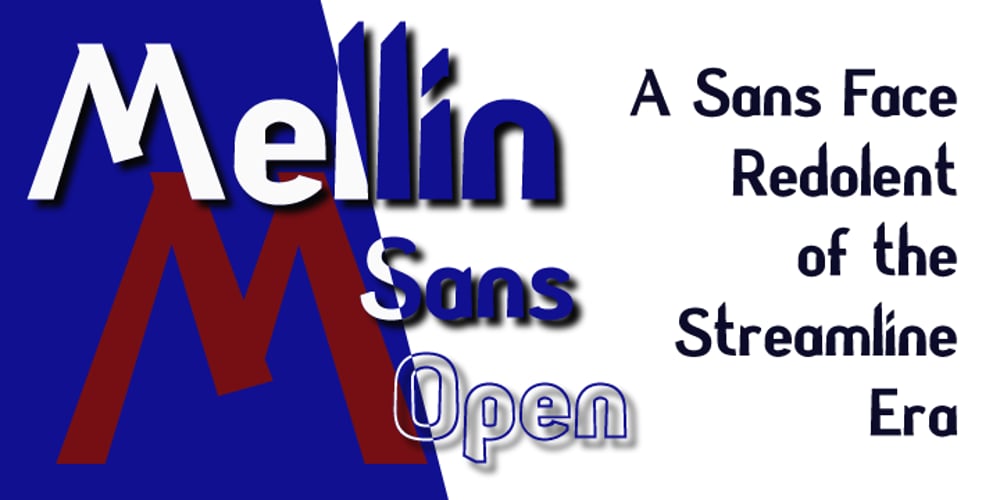
Mellin Font Family was designed by Paul James Lloyd and published by Greater Albion Typefounders. Mellin contains 2 styles and family package options. Mellin takes us to the simple designs of the Streamline era. It is based on heavy vertical strokes with a slight taper. Mellin is offered in a solid form as well as an open outline face, and is ideally suited for posters that aim at the elegant functionality of the 40s and 50s.